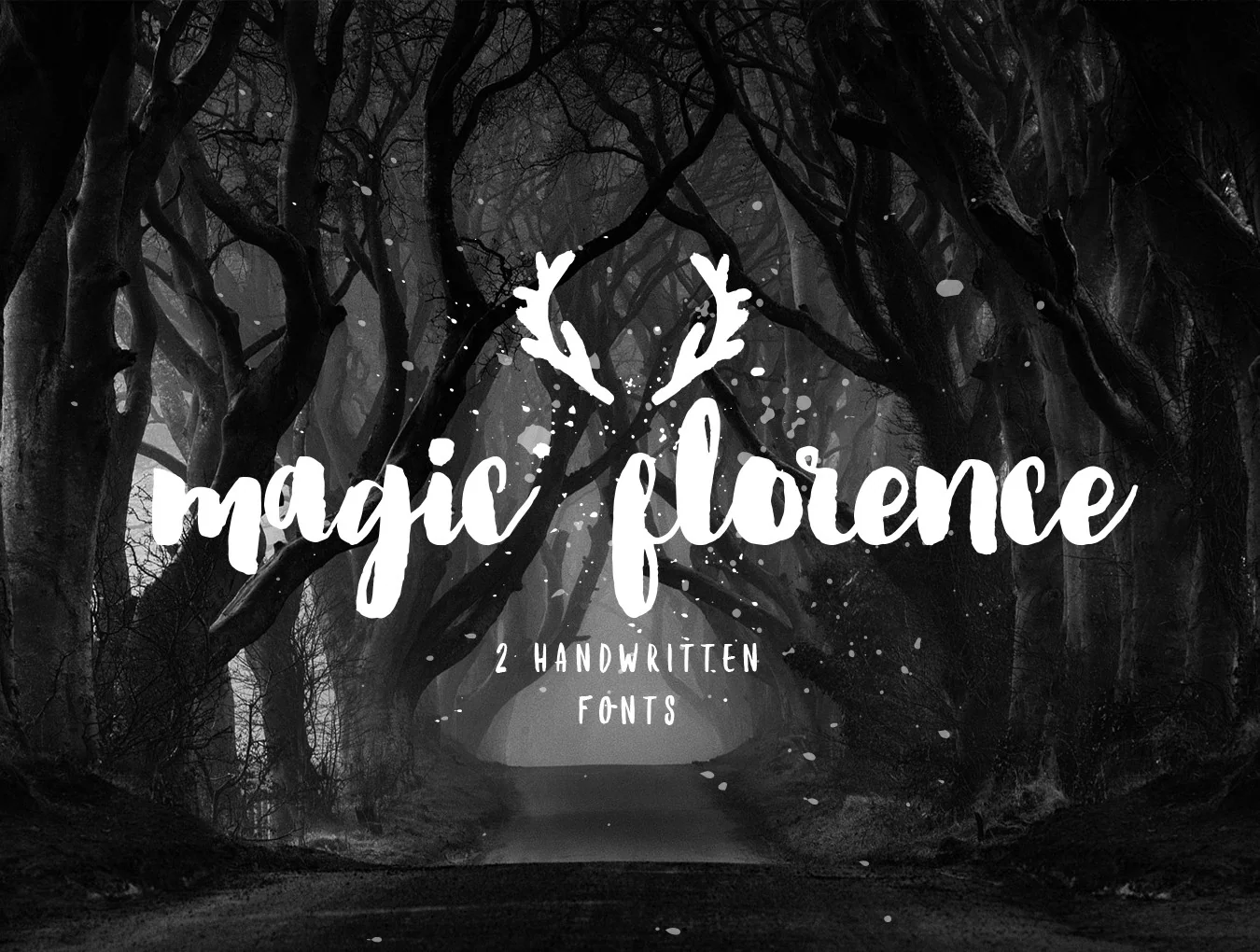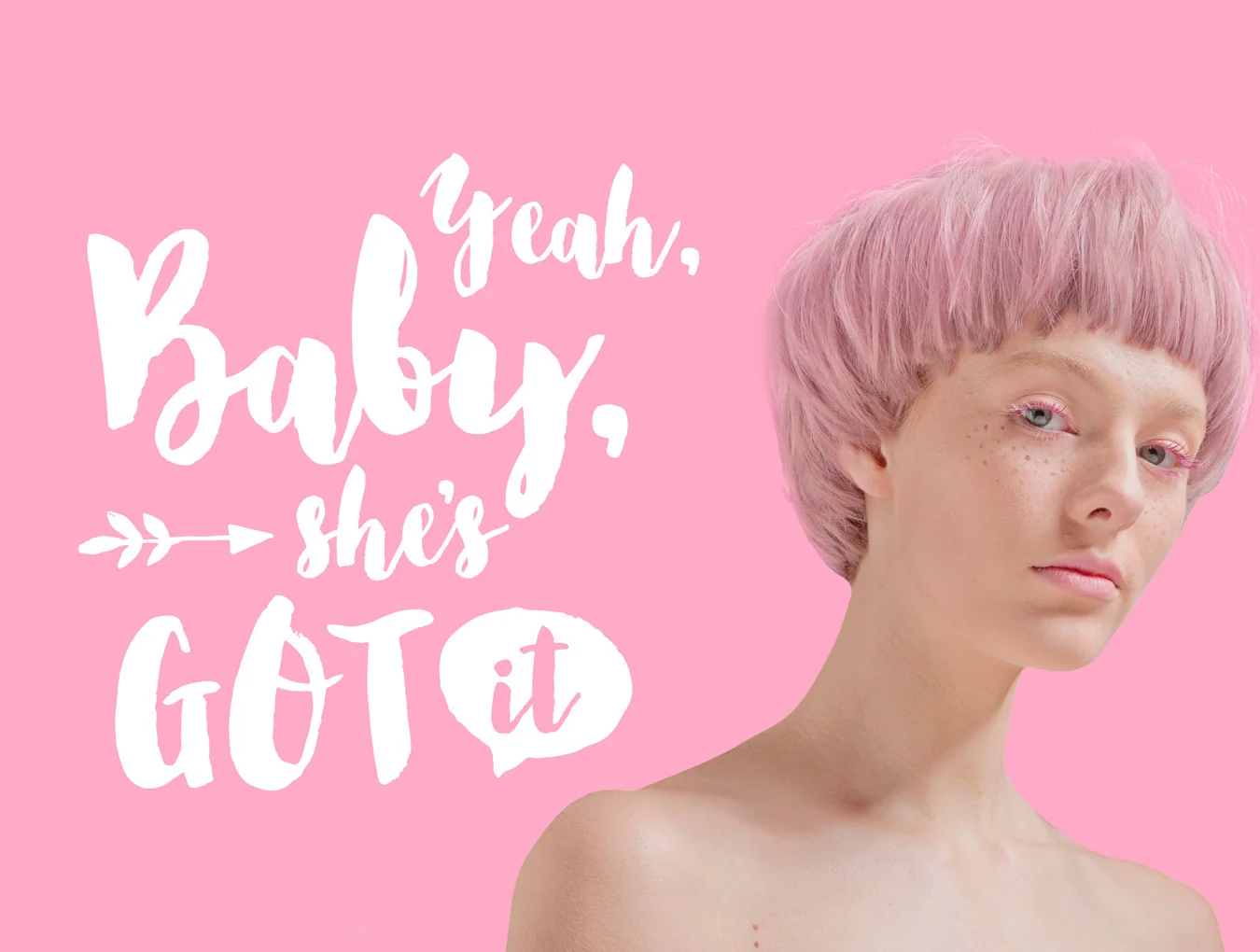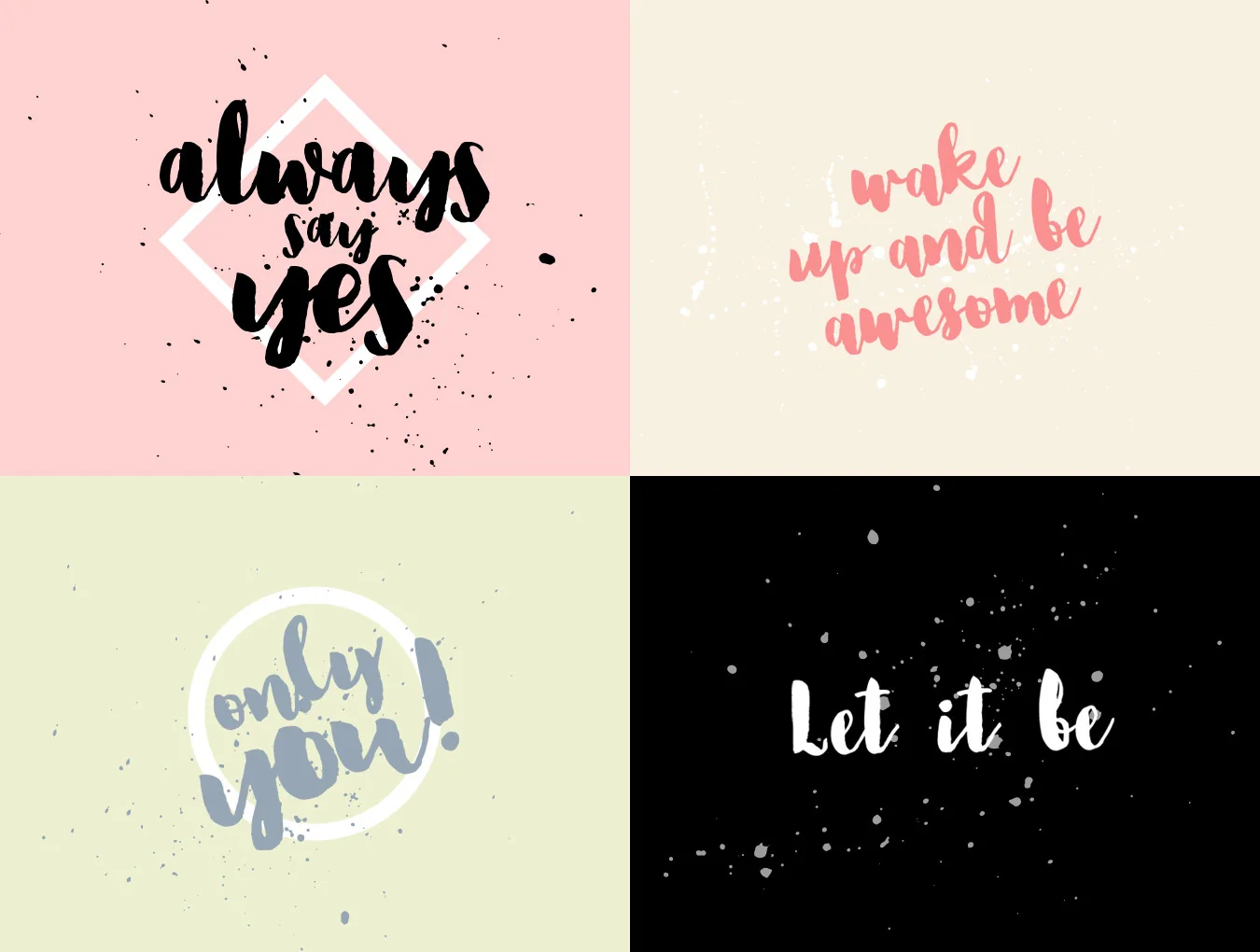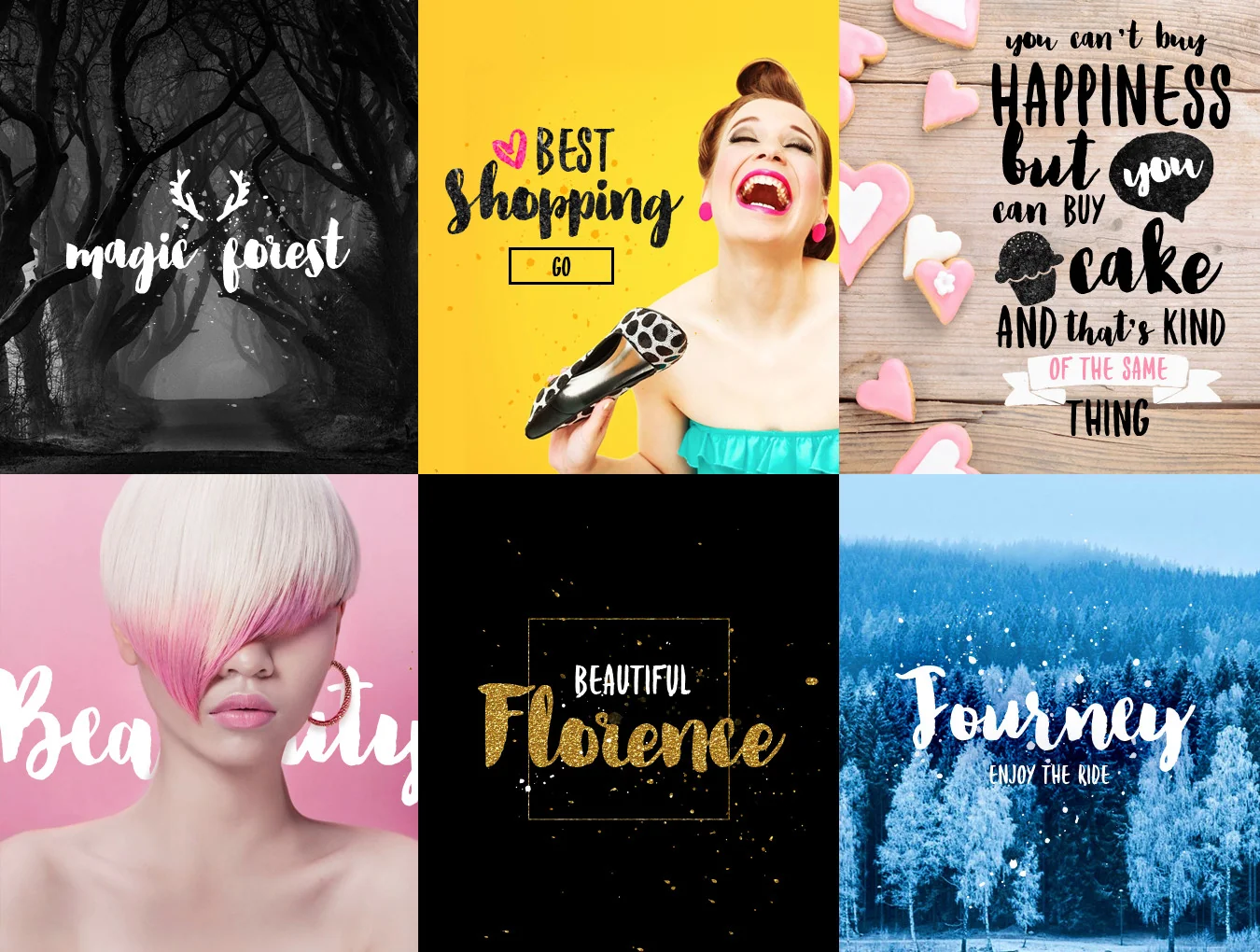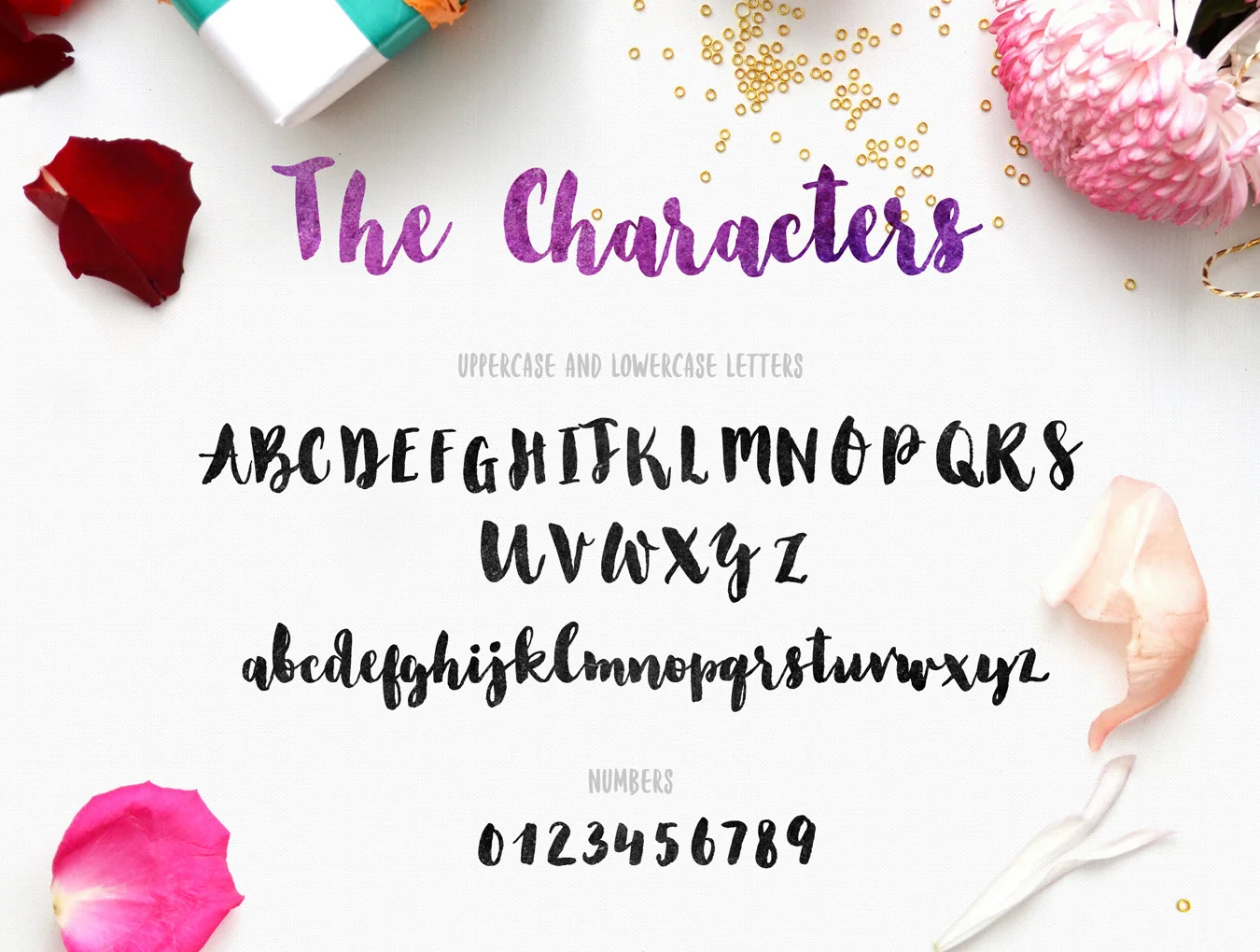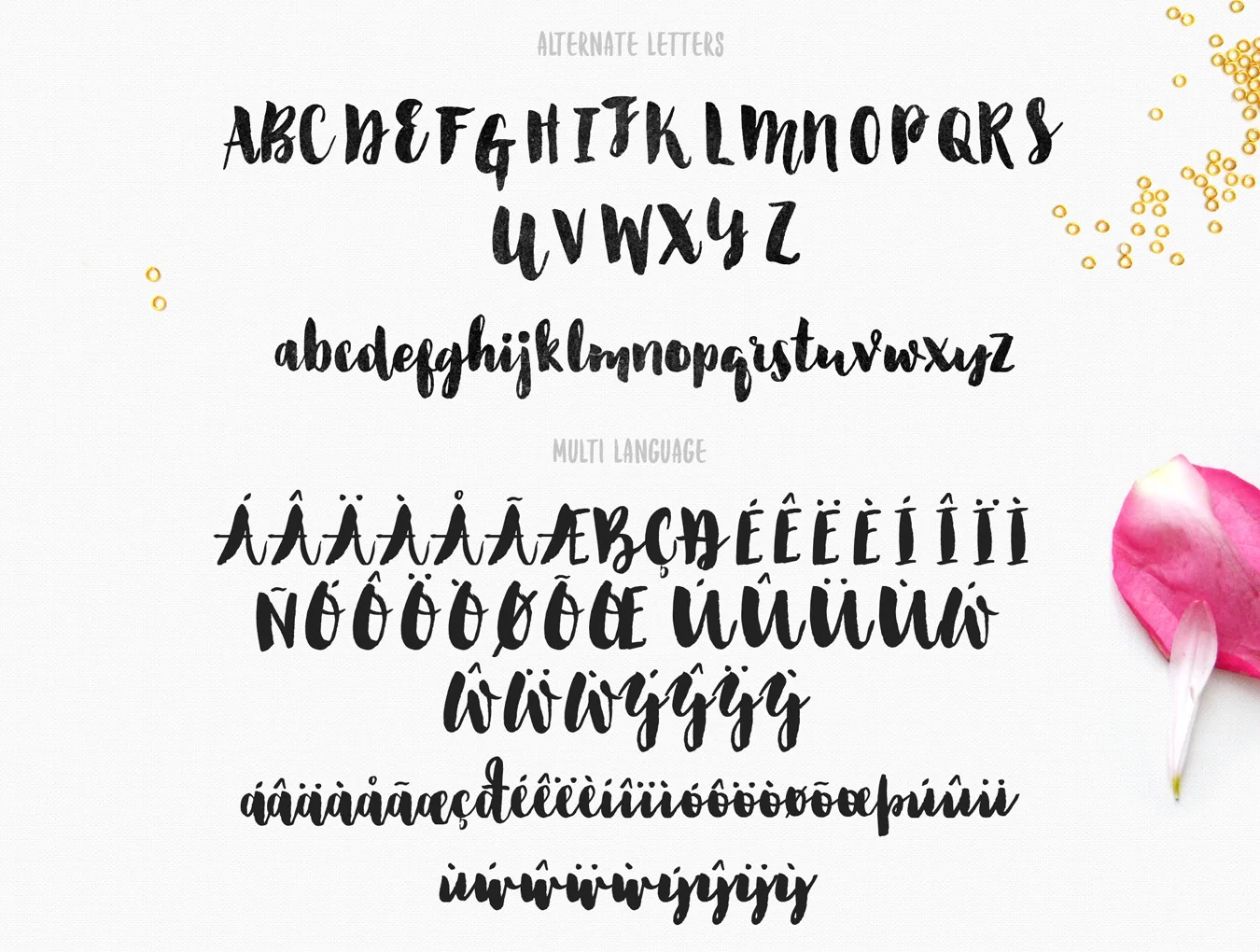
Florence Brush Font
Ideal pair of brush fonts
Two styles included: Helper and Regular
Numbers plus punctuation marks
Ink splashes and symbol elements
Florence is a hand-lettered brush typeface in OTF and TTF formats, ideal for letterheads, apparel, headlines, logos, posters, cards, and more. It includes Florence Regular and Florence Helper. Access alternates through Stylistic Alternates and Ligatures in Photoshop or via glyph panels in apps like Illustrator, Photoshop, and Inkscape.